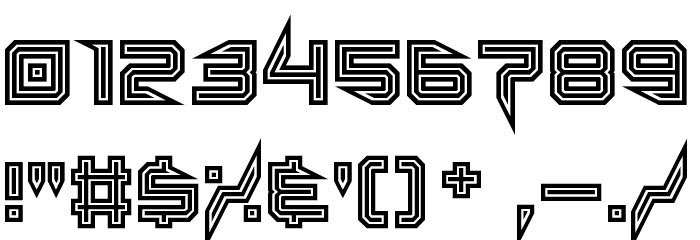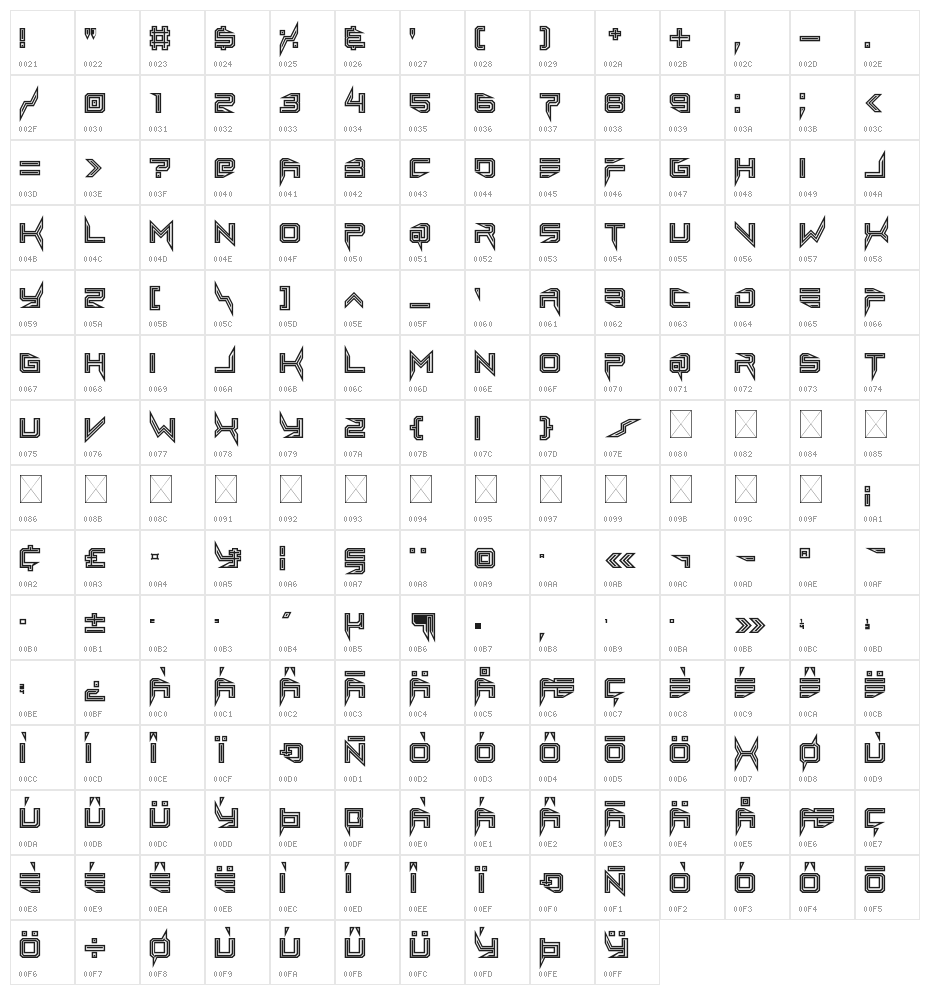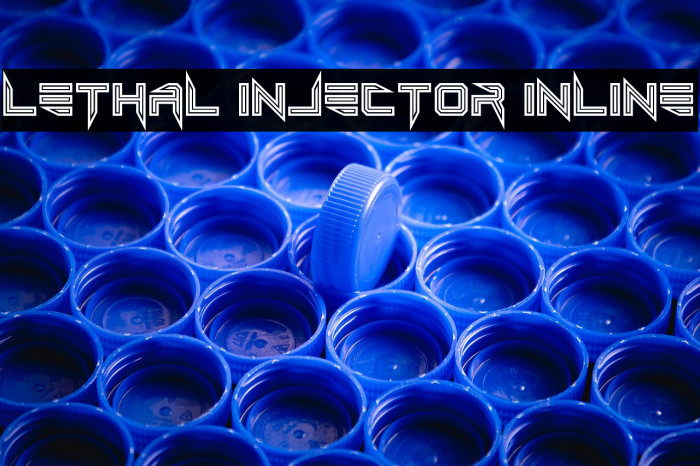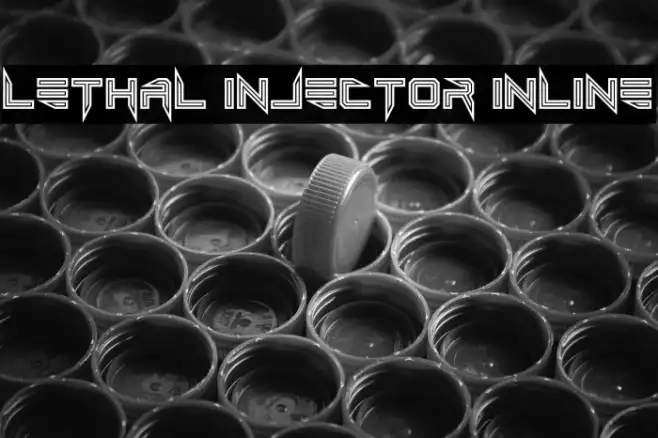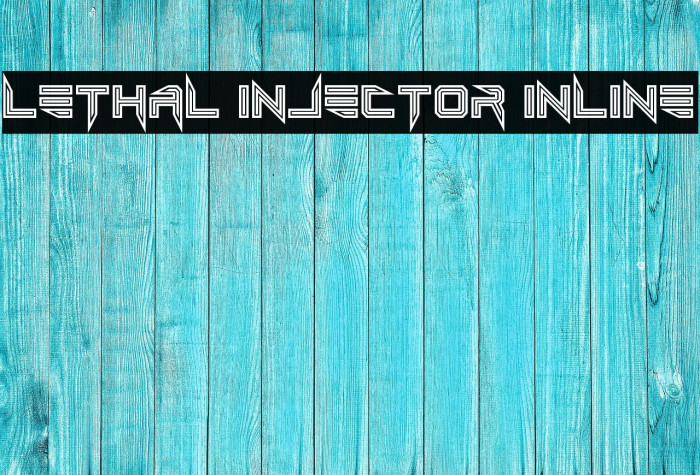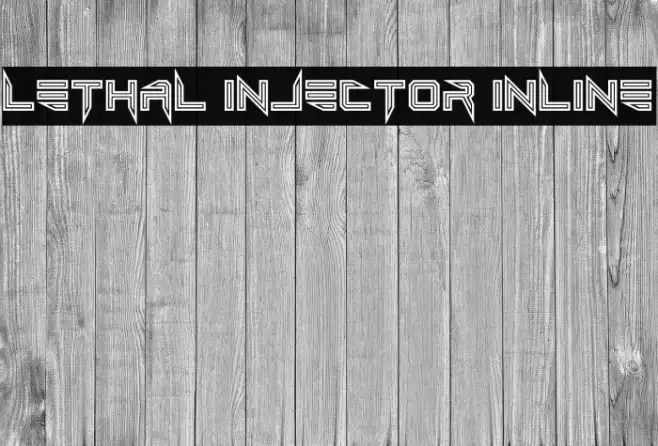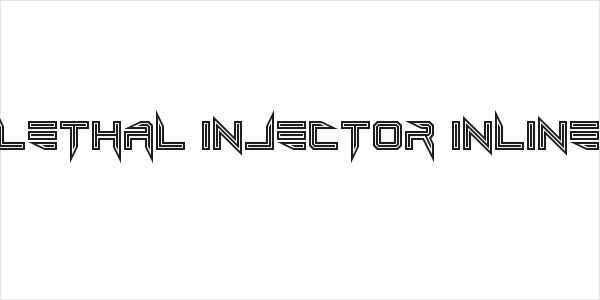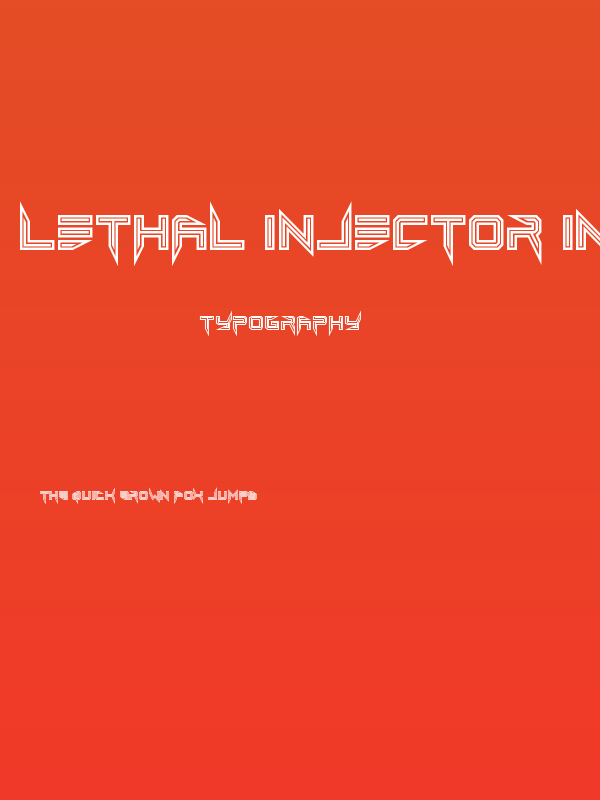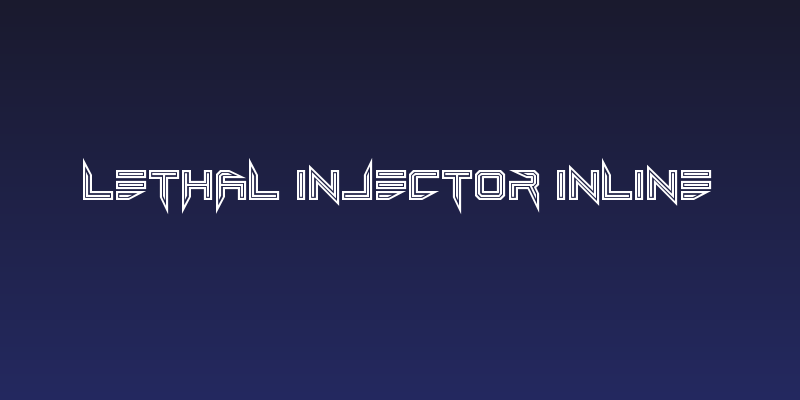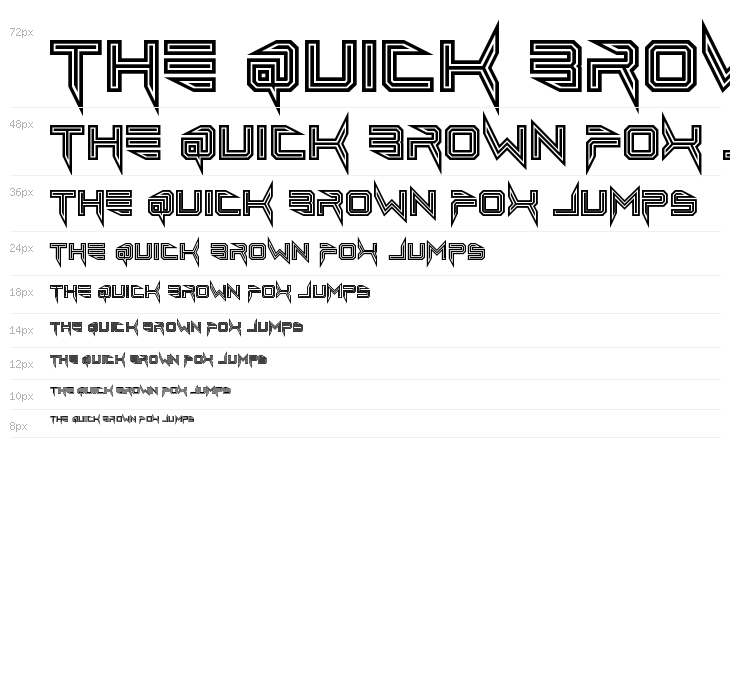
Lethal Injector Inline Font
Lethal Injector Inline Description
This font features a bold, futuristic design with sharp, angular lines and a distinct inline style. The characters are highly stylized, with geometric shapes and pointed edges that create a dynamic and aggressive appearance. The uppercase letters are particularly striking, with each character incorporating unique cuts and angles that enhance the font's edgy aesthetic. The numbers and special characters maintain this theme, providing a cohesive look across all glyphs. The font's intricate design makes it ideal for projects that require a strong visual impact.
| Overall Style | Futuristic, Edgy |
| Proposed Projects | Ideal for sci-fi themed designs, video game titles, posters, and branding that requires a modern, edgy look. |